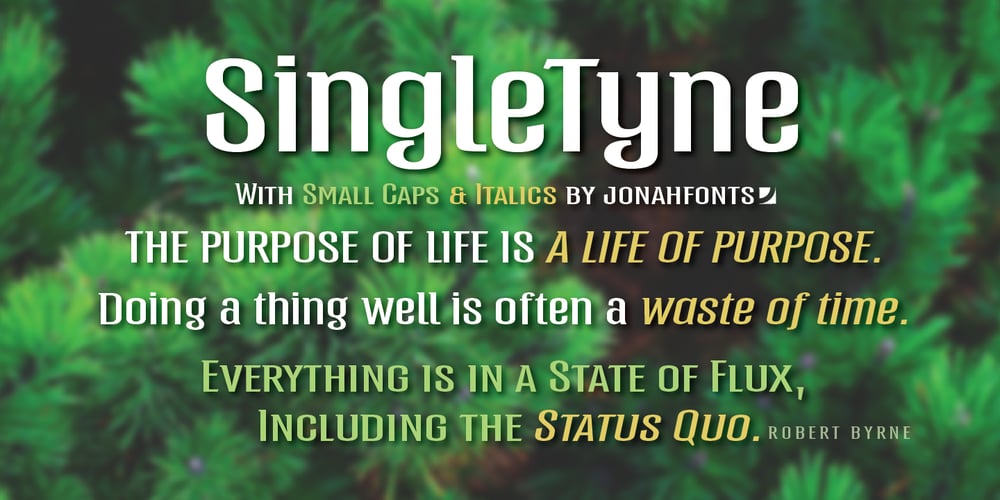
Single Tyne
Single Tyne font
Single Tyne Font Family was designed by John Nahmias and published by Jonahfonts. Single Tyne contains 2 styles and family package options. A single top serif creates a modern look between serifs and a single weight font. SingleTyne contains short ascenders and descenders for tight line spacing designed as a display face that also works well for short sentences and paragraphs.